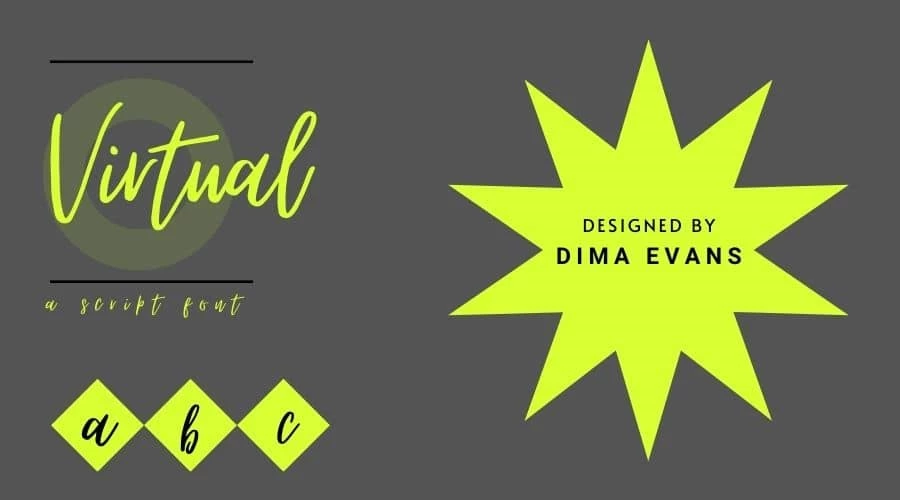
Virtual script font is a funny handwritten script font designed and shared by Dima Evans. It comes with uppercase, lowercase, alternate symbols, and some ligatures. It is one of the best eye-catching script fonts and also has an amazing style.
Virtual Script is a font style that you can utilize all over the place. From customary composing to plan creation, this text style is reasonable to use in any viewpoint. Planners love to utilize this text style more than others. Various fashioners allude and incline toward this textual style for the reason for their solace as well as for the shocking look.
You can use this font for watermarks on photography, signature or signature logo design, quotes, album covers, business cards, and many other design projects.